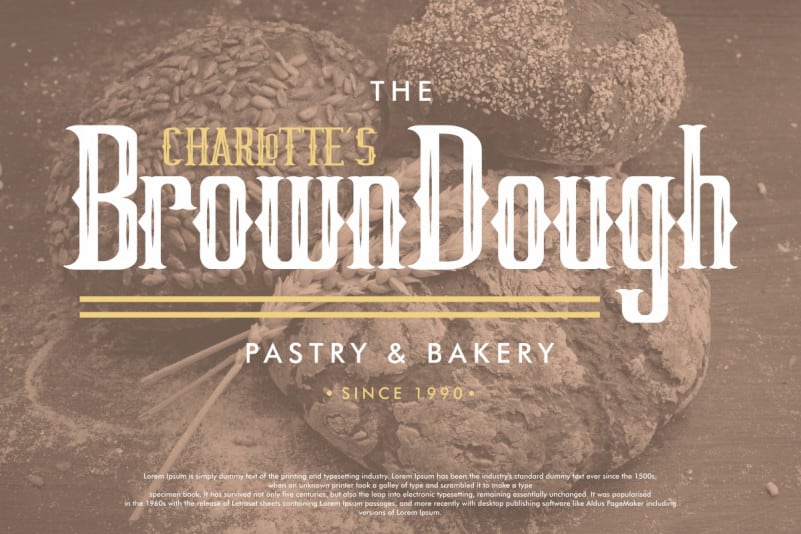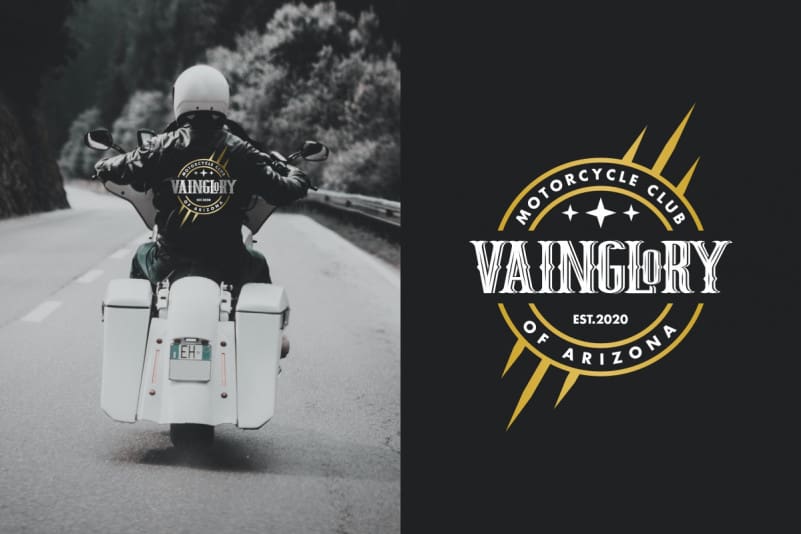
RollKing Display Font
RollKing Display Font is a handmade vintage and luxury serif display font handlettering, which is combining modern and classic typography with some look. This font is crafted carefully in every its single letter so we can make sure it has old-fashioned serif display font with Vintage theme. On this font, you will find two styles : Reguler and Shadowed. You can also combine these two style like we did on the preview test font cover.
RollKing Display Font includes full set of Uppercase and Lowercase Basic Characters, Numerals and Punctuation. Also it contains ligatures to make it flowless and two styles set font characters to perfectly make awesome look that add more aesthetic fonts to perfect your extraordinary project.